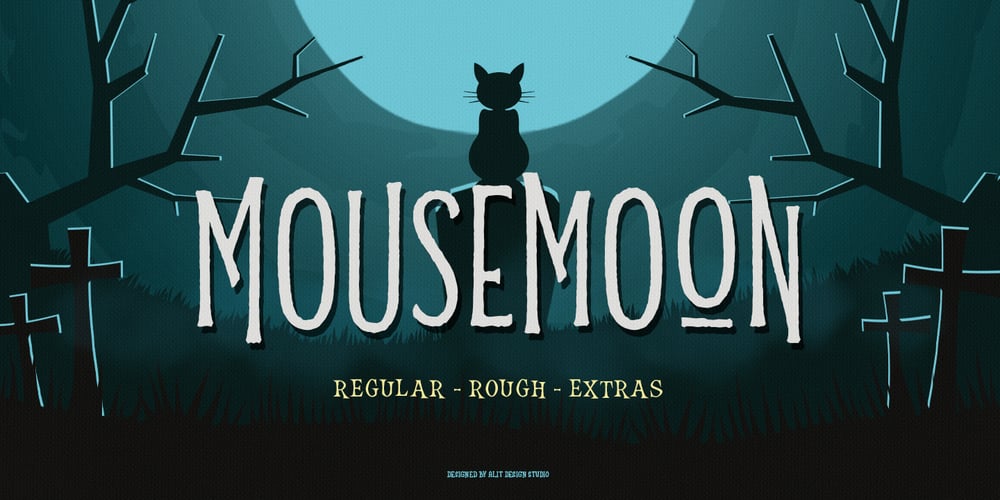
Mousemoon Font Family was designed by Alit Suarnegara and published by Alit Design. Mousemoon contains 3 styles and family package options. Presenting the πββ¬ππ The Mouse Moon Halloween Typeface πππ by alitdesign.The Mouse Moon Halloween Typeface is designed for the needs of design concepts themed about Halloween and events in October and November. The Mouse Moon Halloween Typeface has a horror character with a character shaped like distortion character, making the horror Halloween themed design concept even better and unique.ππThe Mouse Moon Halloween Typeface also gets a bonus character of 150 Halloween-themed illustrations that make creating designs even easier. Simply by downloading The Mouse Moon Halloween Typeface, creating a Halloween themed design is very quick and easy.The Mouse Moon Halloween Typeface is perfect for magazine cover designs, brochures, flyers. Instagram ads, Canva Design and so on with halloween and dark concepts. besides that this font is very easy to use both in design and non-design programs because everything changes and glyphs are supported by Unicode (PUA).The Mouse Moon Halloween Typeface contains 745 + 150 bonus glyphs with many unique and interesting alternative options.Language Support : Latin, Basic, Western European, Central European, South European,Vietnamese.In order to use the beautiful swashes, you need a program that supports OpenType features such as Adobe Illustrator CS, Adobe Photoshop CC, Adobe Indesign and Corel Draw. but if your software doesn’t have Glyphs panel, you can install additional swashes font files.